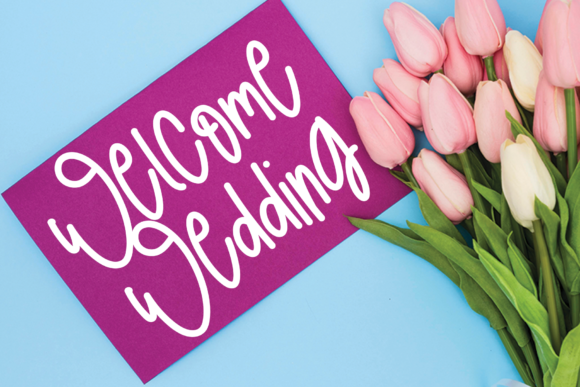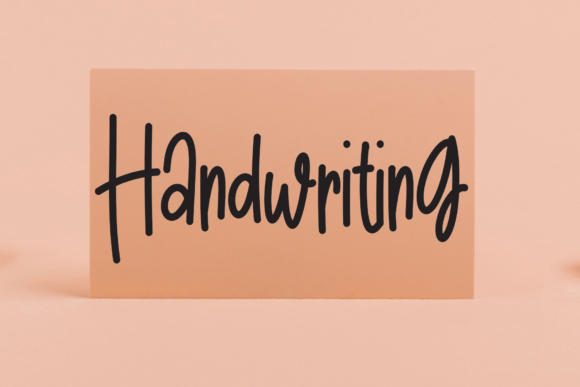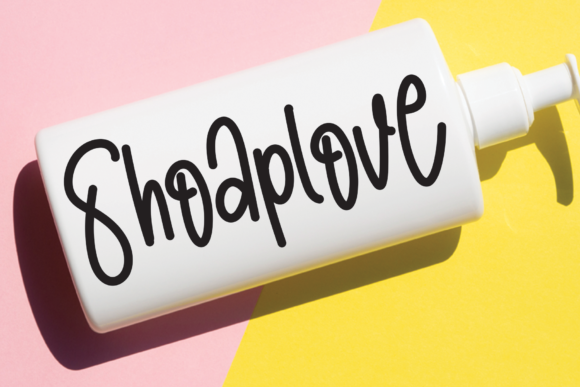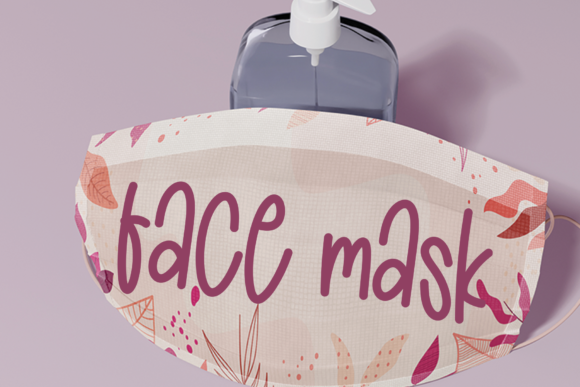
The Perfect Recipe for Unique Design: Introducing Disneycake Font
Have you ever stared at a blank page, pen in hand, waiting for that spark of creativity to strike? It’s a feeling designers know all too well. For those moments when inspiration is hard to find, a little help from a trusted font can make all the difference. Enter Disneycake Font, a charming handwritten font that’s as elegant as it is playful.
Disneycake Font is the perfect blend of classy and quirky, making it a valuable addition to any designer’s toolkit. Whether you’re crafting a logo, designing an invitation, or creating social media posts, this versatile font is sure to elevate your designs. Its modern look and feel make it an ideal choice for branding, stationery, and wedding designs, among many other applications. With Disneycake Font, you’ll be able to add a touch of whimsy and sophistication to any project, making it a must-have for designers of all levels.
Disneycake Font Key Features
- Font Family: Disneycake Font is a unique, hand-drawn font designed to resemble a Disney cake. It’s perfect for adding a touch of whimsy and magic to your designs.
- Unique Characteristics: The Disneycake Font features a playful, hand-drawn design with intricate details and textures, giving it a one-of-a-kind look that’s sure to capture attention.
Disneycake Font Review
Overall, I think the Disneycake Font is a fun and playful font that could add a magical touch to various projects. ✨ Here are some of its strengths:
- Whimsical charm: The font has a unique, hand-drawn feel that’s perfect for children’s books, party invitations, or other projects that need a touch of whimsy.
- Variety of weights: The font comes in multiple weights, from light to bold, giving users flexibility in how they use it.
- Easy to read: Despite its playful nature, the font is still easy to read, even at smaller sizes.
- Limited language support: The font may not be suitable for projects that require support for multiple languages.
- May not be suitable for formal projects: While the font is perfect for playful projects, it may not be the best choice for formal or professional projects.
- Some characters may be missing: Depending on the specific project, some characters may not be available in the font.
Overall, I think the Disneycake Font is a fun and versatile font that’s perfect for projects that need a touch of magic. Just be aware of its limitations and use it accordingly.
The Disneycake Font is ideal for:
- Disney-themed designs and projects.
- Food labels and packaging for Disney-themed treats.
- Personalized gifts and stationery.